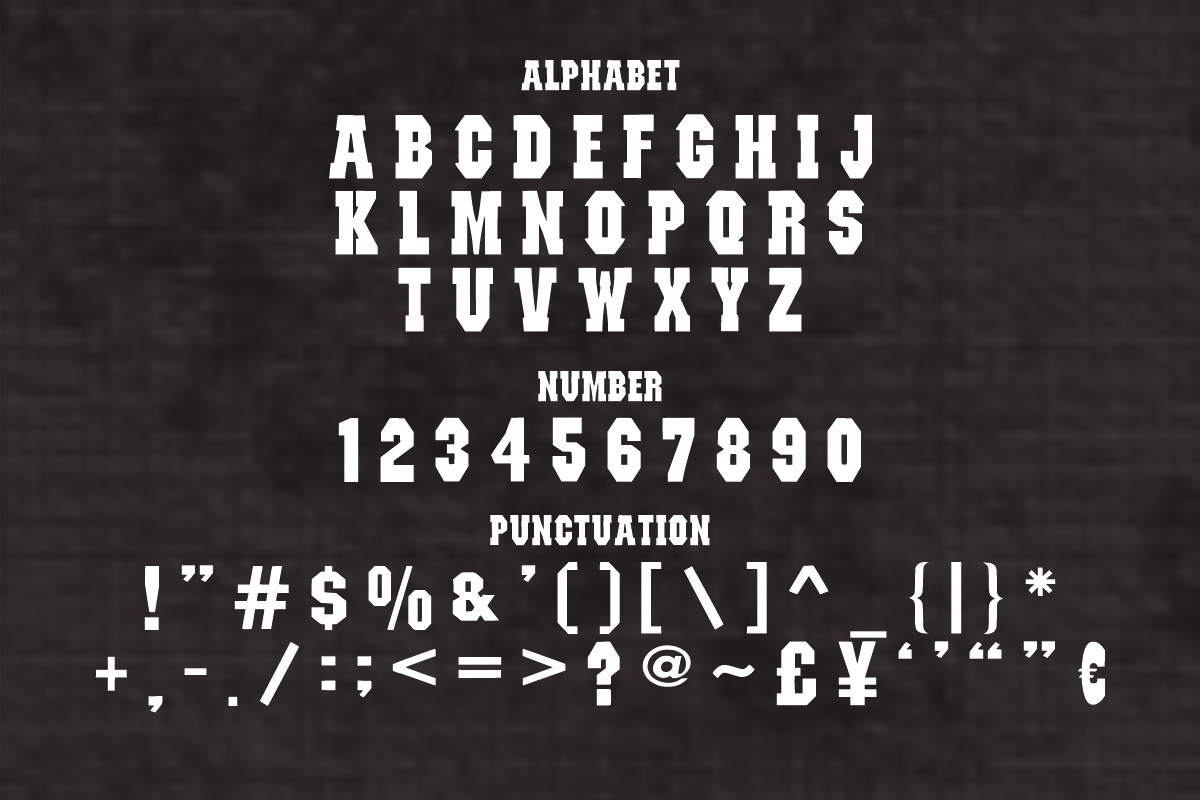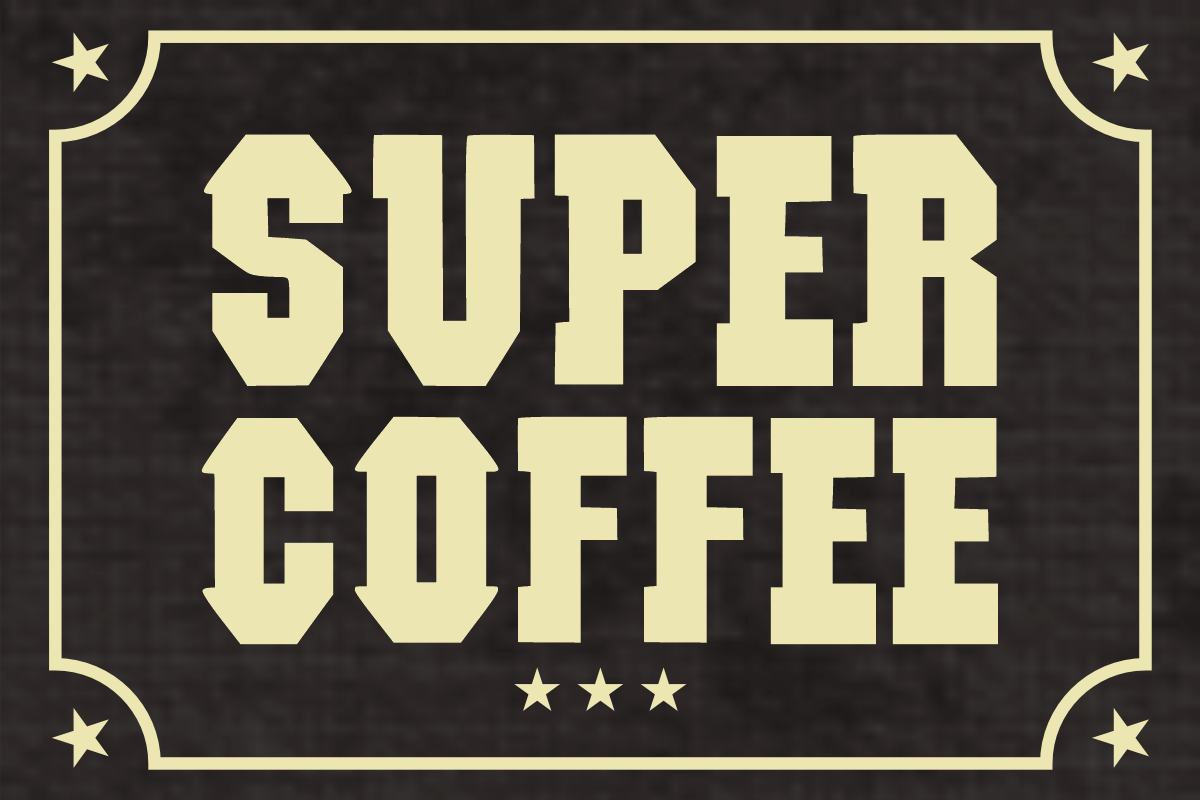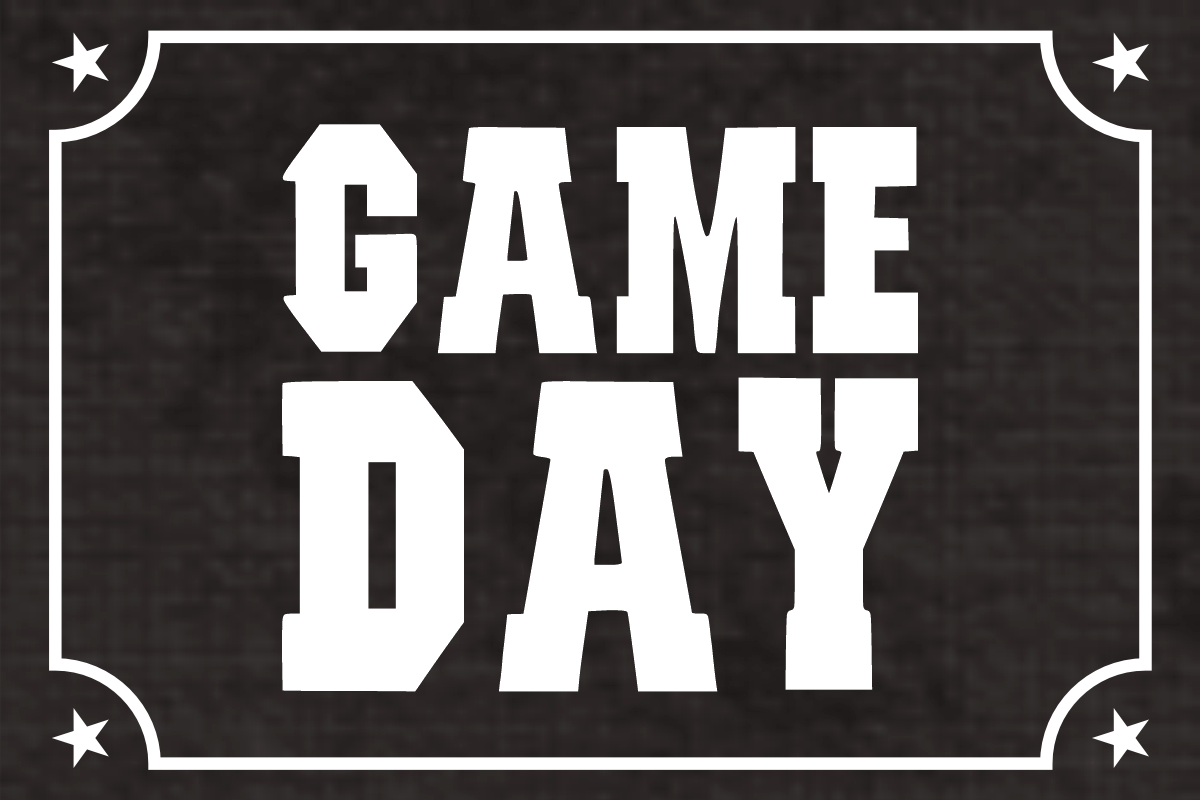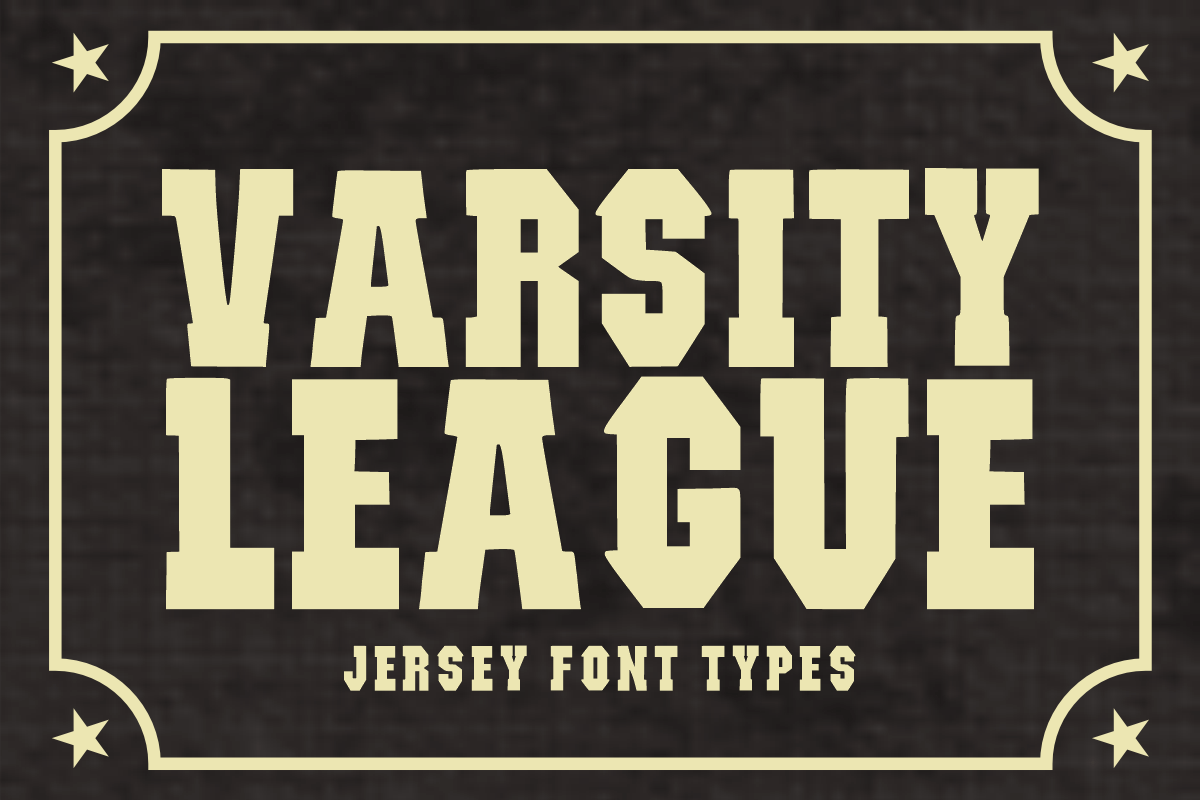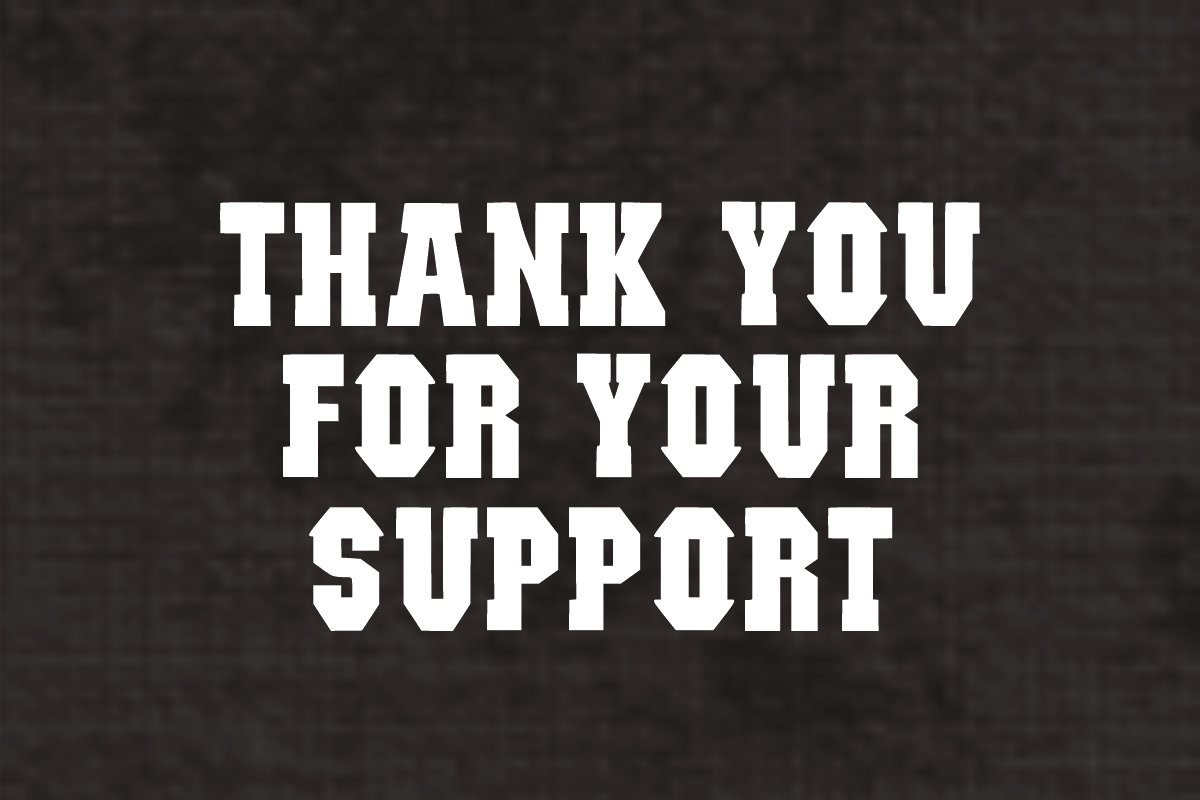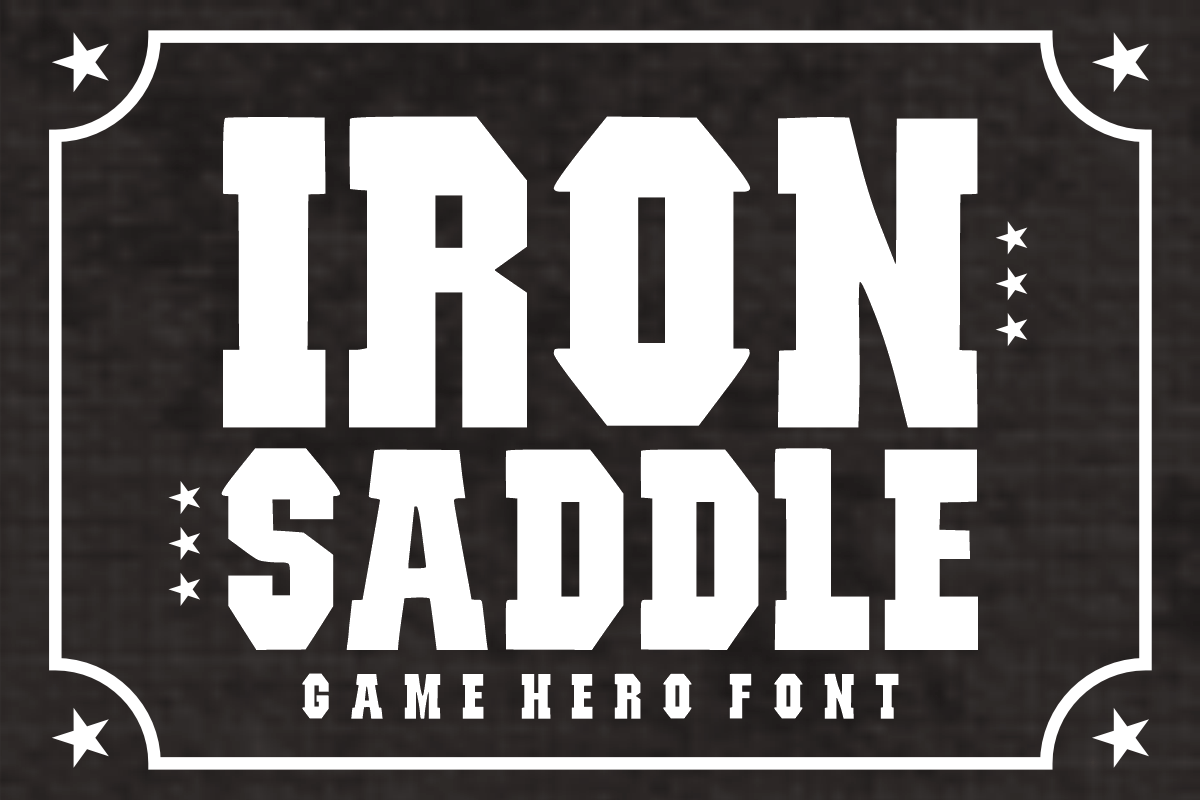
Iron Saddle - Bold Hero Font
🎮 Hey Fellow Designers! Meet Iron Saddle - The Ultimate Bold Hero Font! 🤠
Ready to give your designs an epic, unbeatable look? Iron Saddle is a premium heavy display font featuring bold block shapes, sharp octagonal cuts, and a powerful athletic-meets-western vibe. Whether you're designing for a gaming brand, a sports team, or a rugged lifestyle product, this font delivers maximum impact with a clean, heroic finish!
It’s solid, timeless, and carefully built to make your headlines and logos stand out from the crowd.
✨ What’s Packed Inside:
_ 🔠 _\Bold Uppercase Letters (A-Z)\\* – Strong, blocky characters with distinctive sharp angled cuts.
_ 🔢 _\Matching Numbers (0-9)\\* – Perfect for sports jerseys, team scores, or vintage dates.
_ 🔣 _\Simple Symbols & Punctuation\\* – Essential basics to round up your text layouts perfectly.
🎯 Perfect For Your Next Best-Selling Project:
\* 🎮 Gaming Logos, Esport Branding, Stream Overlays & Video Game Titles
\* 👕 Rugged T-Shirts, Varsity Jackets, Athletic Apparel & Streetwear Branding
\* 🪵 Craft Brewery Labels, Masculine Badges, Coffee Roasters & Adventure Posters